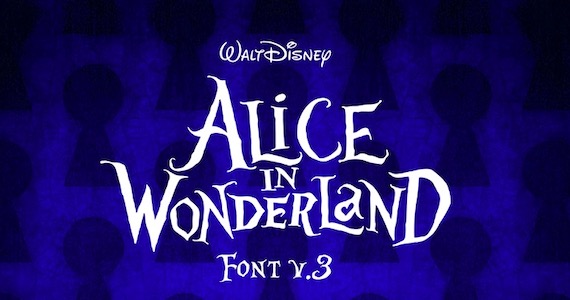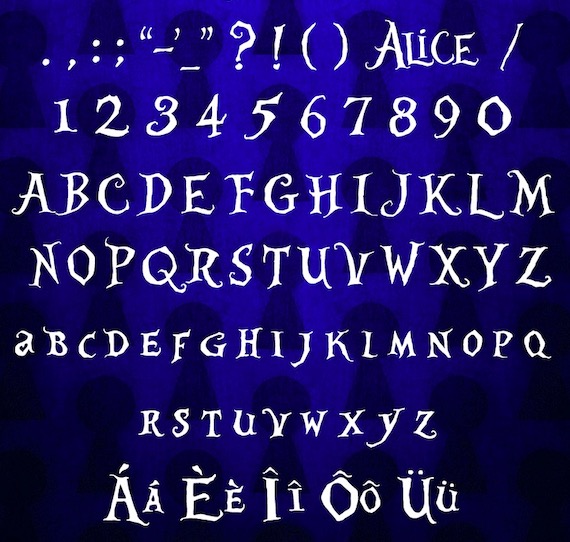
About Alice in Wonderland Font here is a cartoon typeface with a rather fancy style. It’s an animated fantasy film that premiered in 2010 and immediately attracted a large audience around the world.
It’s designed for the title of this remarkable film created by Marco Trujillo López. He invested time and passion to make this great font. With fancy textures, along with a full set of uppercase, and lowercase characters, and punctuation marks. Surely this font will gain more and more people’s attention.
Alice In Wonderland Movie Logo Font